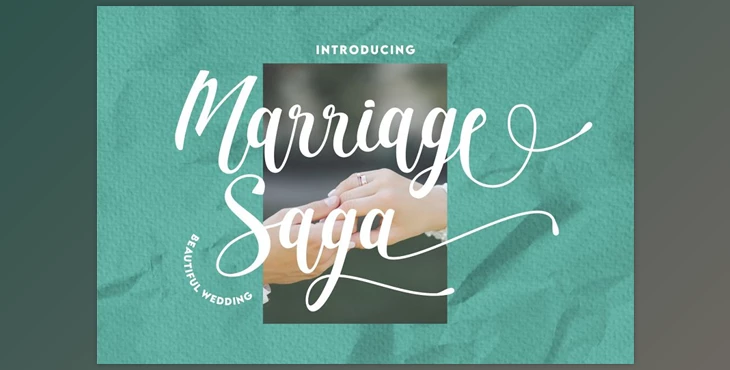
Marriage Saga – Beautiful Wedding Font:
This font is great for professional use, which makes this font more sophisticated and suitable for all kinds of projects you're working on, but especially romantic work. However, this font is ideal for branding, logos invite cards and greeting cards advertisements titles, headlines, book titles, stickers packaging posters, quotes T-shirts/apparel, billboards, and many more.
The other characters were split into various Open Type features such as Swash, Stylistic Sets, Stylistic Alternates, and Contextual Alternates and ligatures. These Open Type features can be accessed using Open Types savvy programs such as Adobe Illustrator, Adobe InDesign Adobe Photoshop Corel Draw X version, and Microsoft Word. This font can also be used to support multi-language.
Features include:
- Uppercase
- Lowercase
- Opentype (Alternates And Ligatures)
- Number, Punctuation, and Symbols
- Multilanguage Support.